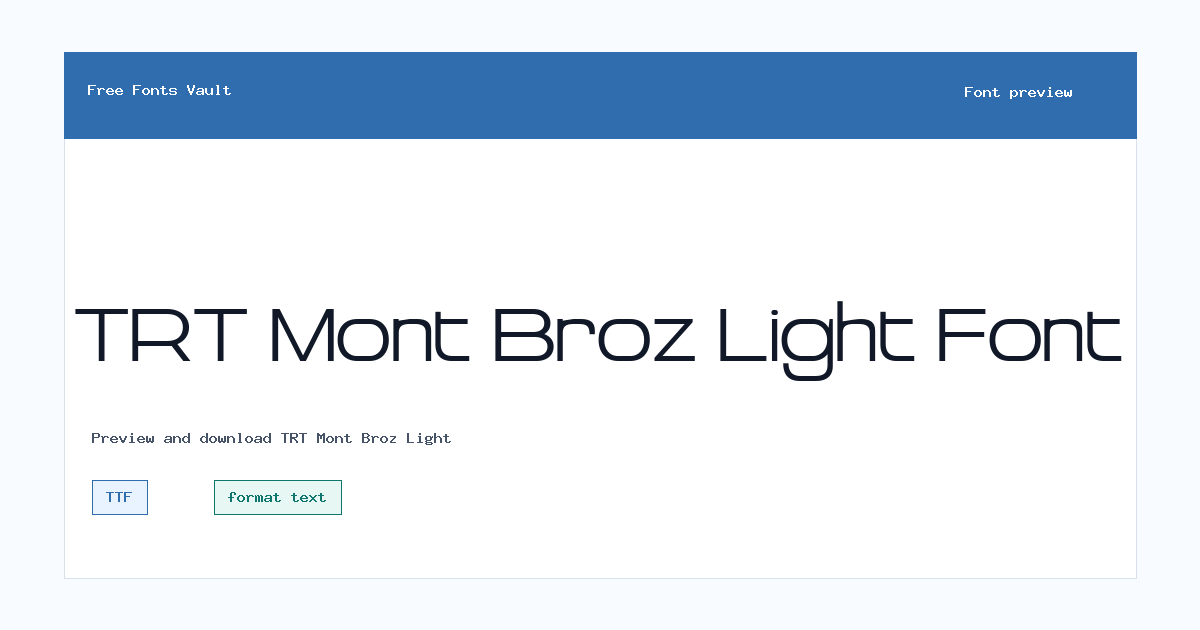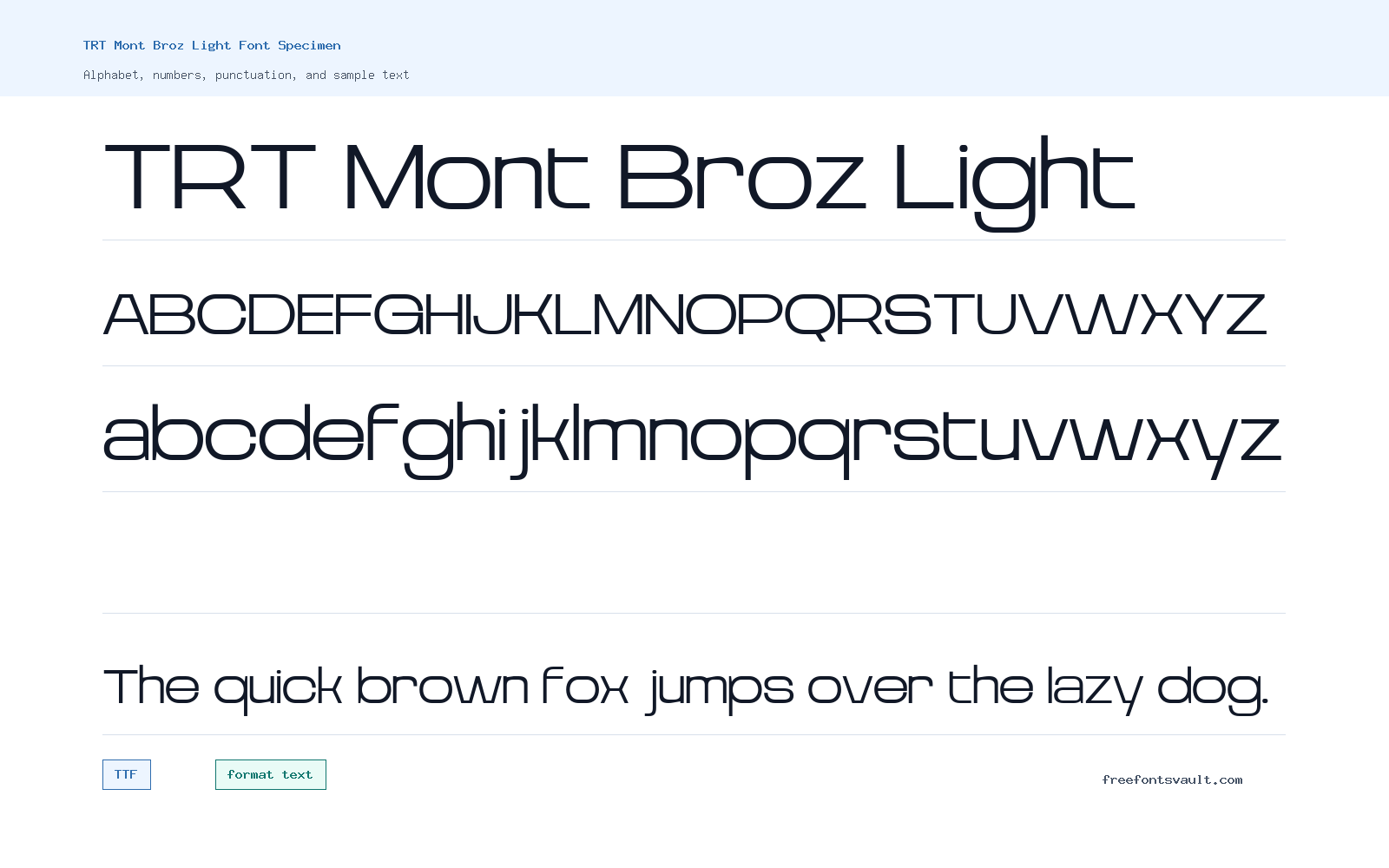
TRT Mont Broz Light
TRT Mont Broz Light font preview showing the family name
TRT Mont Broz Light Font
TRT Mont Broz Light font specimen showing alphabet, numbers, and sample text
TRT Mont Broz Light is a wide geometric sans display font with a clean, open look and a light weight made for large text.
About TRT Mont Broz Light
TRT Mont Broz Light is part of the TRT Mont Broz Demo family by Truetype. The design uses broad letter shapes and simple geometric forms, giving it a modern sans serif feel that works best when the letters have room to breathe. This Light style is thinner than the heavier demo cuts, so it feels more spacious and restrained while still keeping the wide display character of the family.
Use this font for personal mockups, headline tests, poster layouts, social graphics, cover text, and short branding-style previews. Because the available demo font has a limited basic character set, test your exact wording in the preview before using it in a design. The light strokes need enough size and contrast, so avoid using it for small captions, dense paragraphs, or low-contrast color combinations.
The Light weight gives TRT Mont Broz a cleaner and more refined tone than the heavier cuts. It can work well for large hero text, minimal posters, fashion-style titles, and spacious editorial mockups. Because the strokes are lighter, the design needs strong contrast and enough size to avoid looking weak or washed out.
• Wide geometric sans serif letterforms with a clean display style
• Personal poster, title, and social media layout experiments
• Large display text where a wide modern sans look is needed
For best results, preview it at larger sizes and check spacing carefully. The Light weight can look elegant in short headlines, but it may lose clarity if used too small or placed on busy backgrounds. Use a darker foreground on a calm background when testing the Light style.
What kind of font is TRT Mont Broz Light?
It is a wide geometric sans serif display font in a light weight.
Can I use it for body text?
It is better for short display text. The wide shapes and light strokes are not ideal for long paragraphs or small text.
Does the demo include the full character set?
No. External listings describe the mini/demo edition as having a limited set of basic glyphs, so test your needed characters before using it.